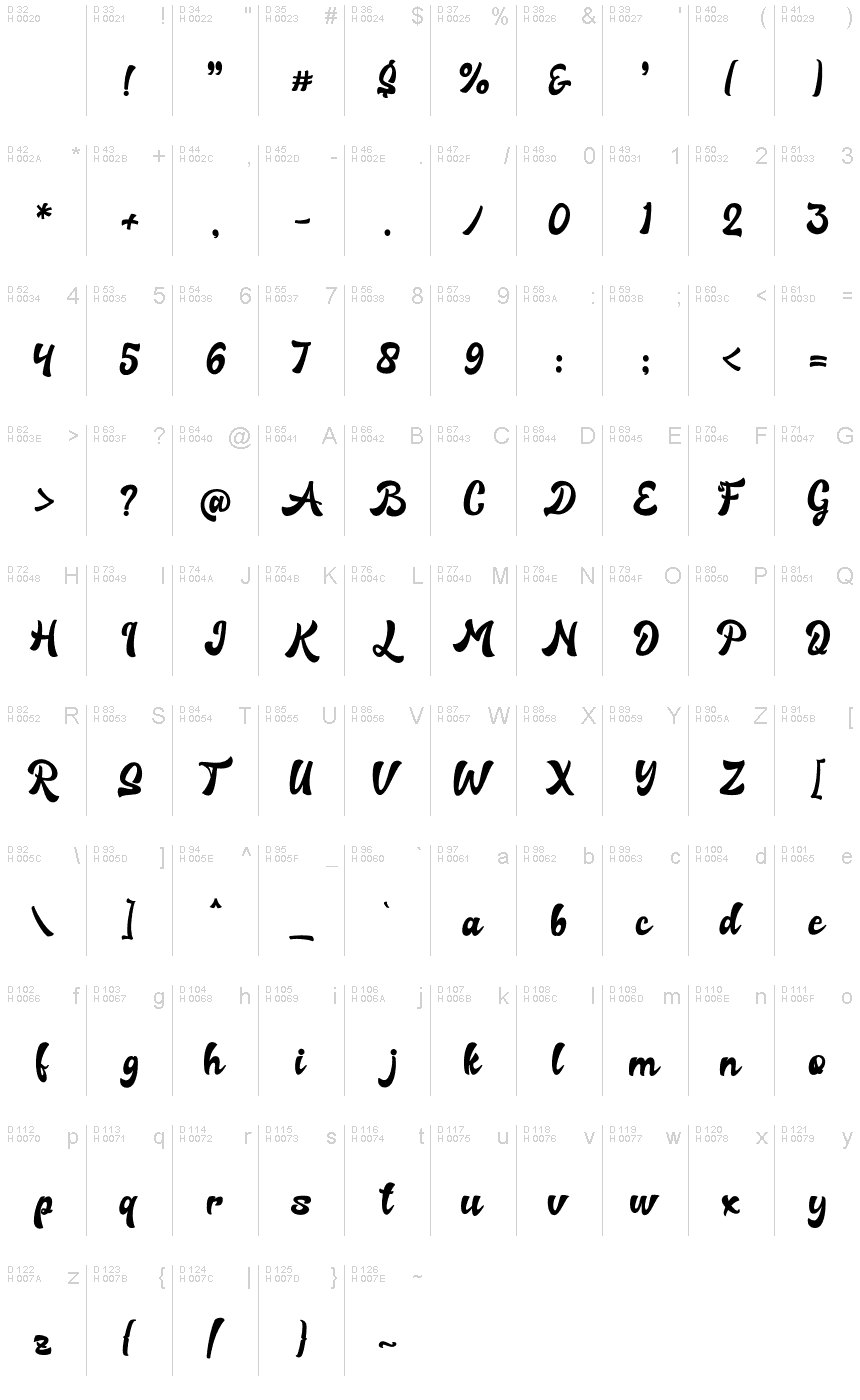
aerostyle
Aerostyle is a bold, handwritten script font designed by Letter Art Studio. It's perfect for creating eye-catching logos, titles, invitations and more! Its playful yet sophisticated style makes it ideal for any project that needs an extra special touch.